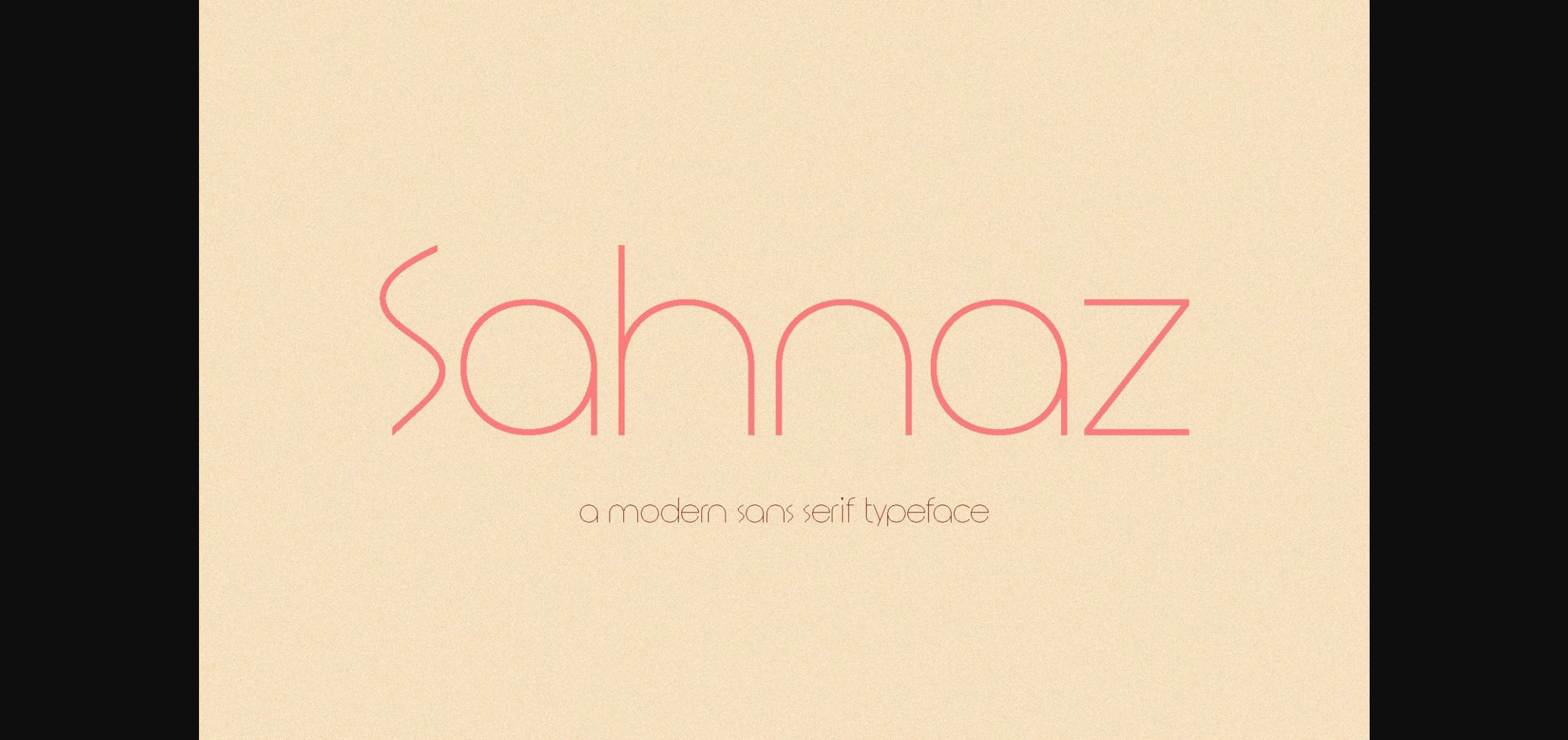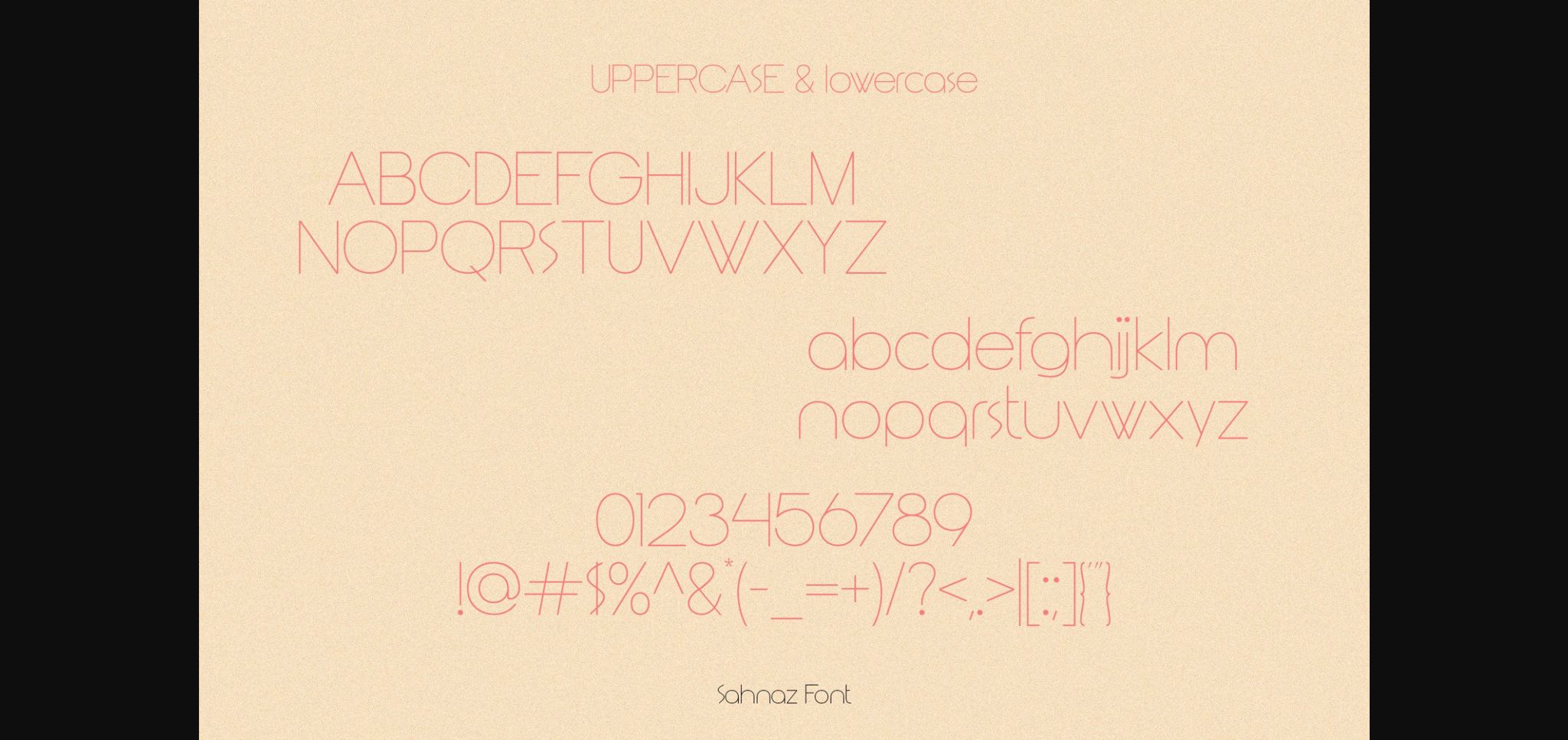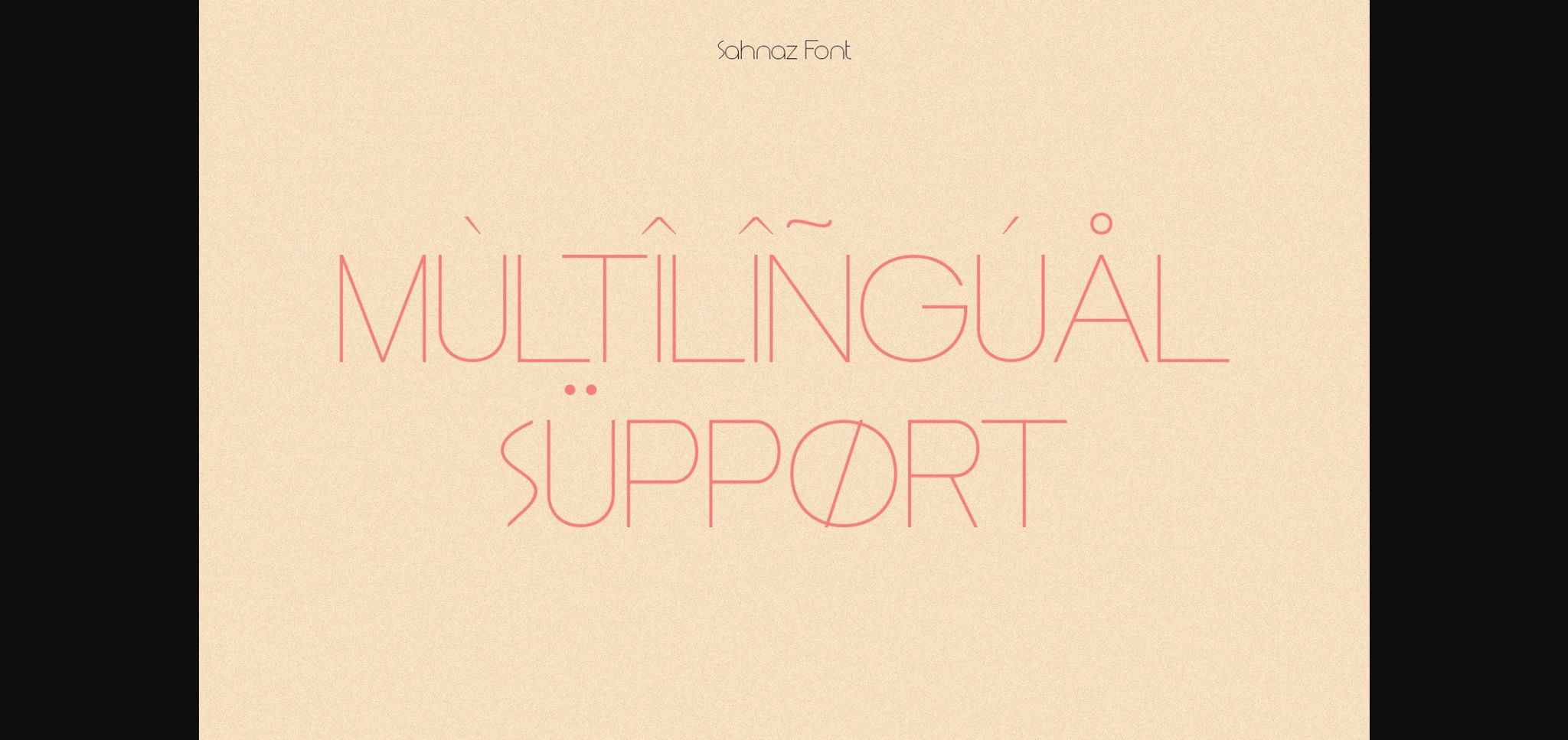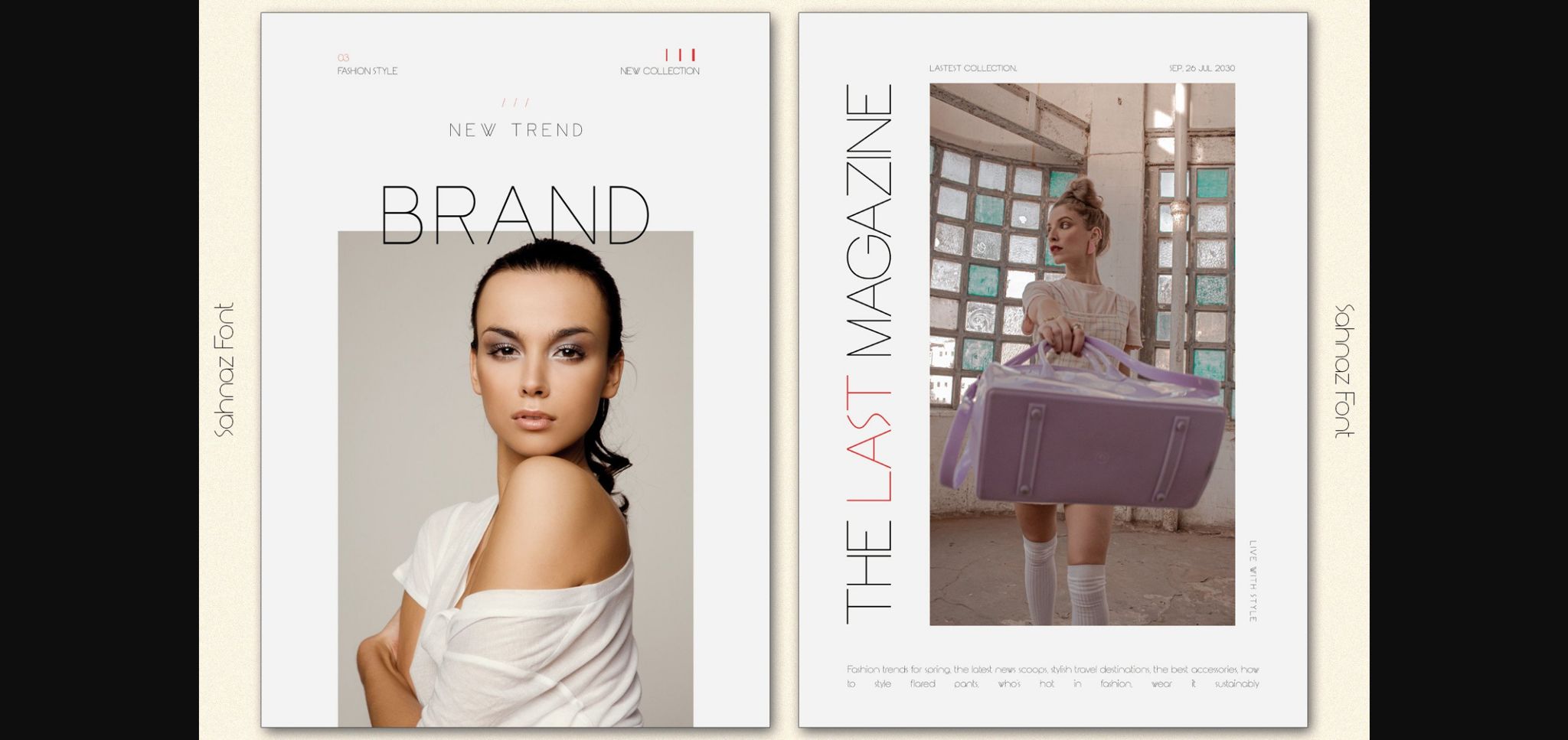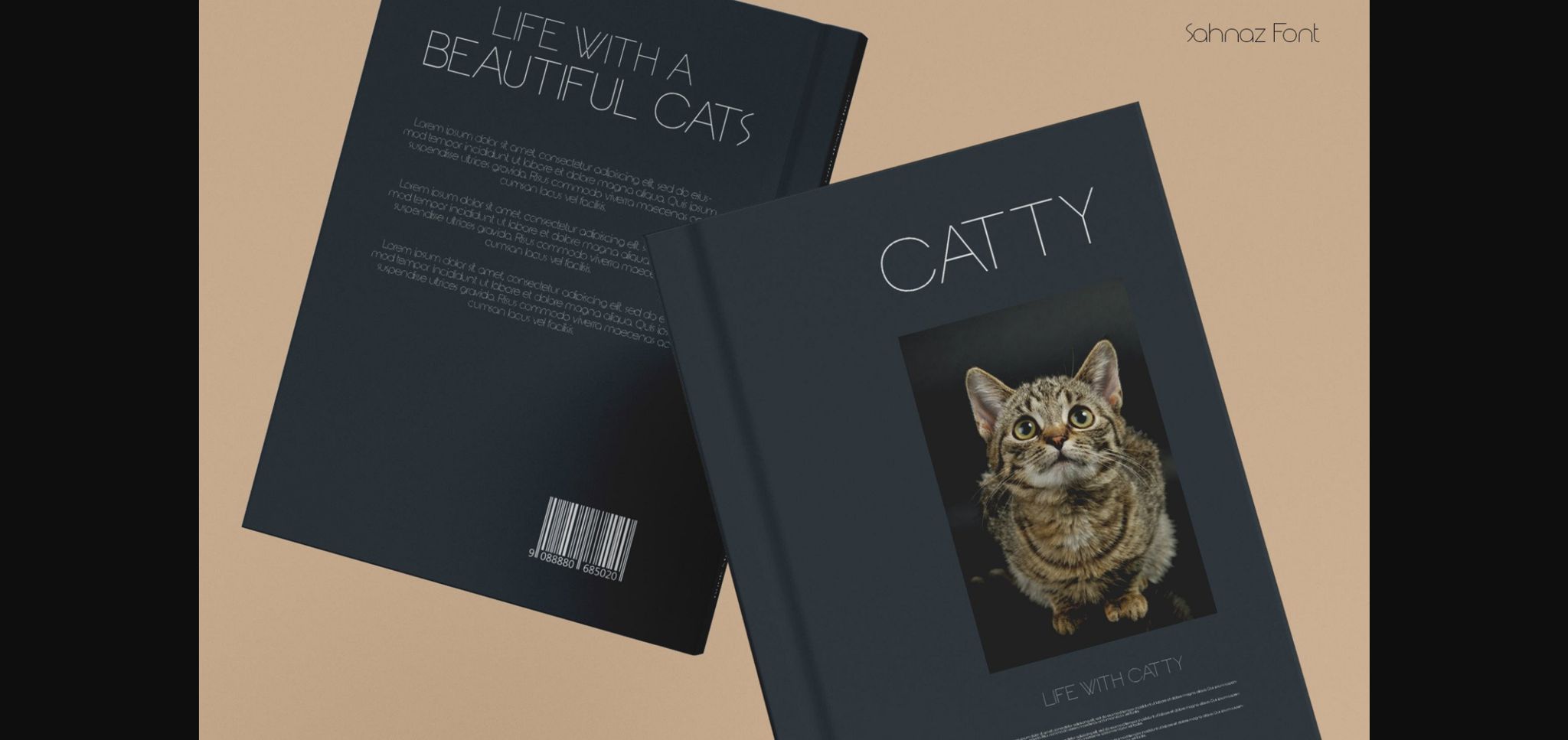
Sahnaz Font
About Sahnaz Font
Sahnaz is an elegant sans serif font that will bring your projects a touch of luxury and style. It’s the perfect match for logotypes, branding, wedding monograms and invitations, blog headlines, and much more. Flip through all the previews and get inspired by this font.